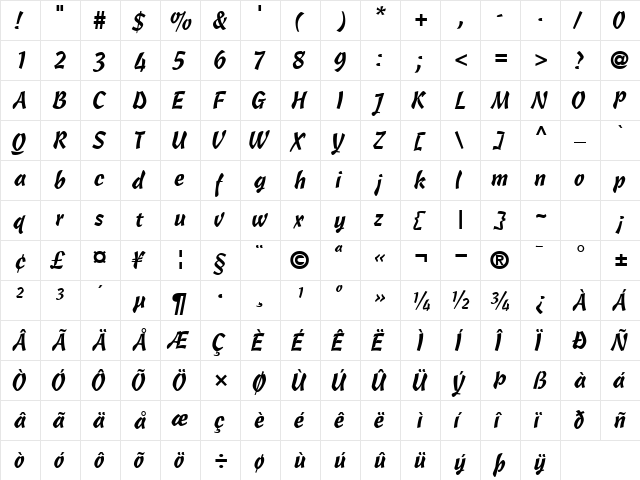
OleScriptSSK Regular
Design Context for OleScriptSSK Typeface
OleScriptSSK flows with the natural rhythm of handwritten lettering, making it ideal for designs that call for warmth and personal expression.
Font Pairing: Combine OleScriptSSK with a simple geometric sans for maximum contrast — the tension between flowing curves and clean structure is a classic typographic pairing.
Pro Tip: Pair OleScriptSSK with a clean sans-serif for supporting text. The contrast between fluid script and geometric structure creates an elegant typographic hierarchy.